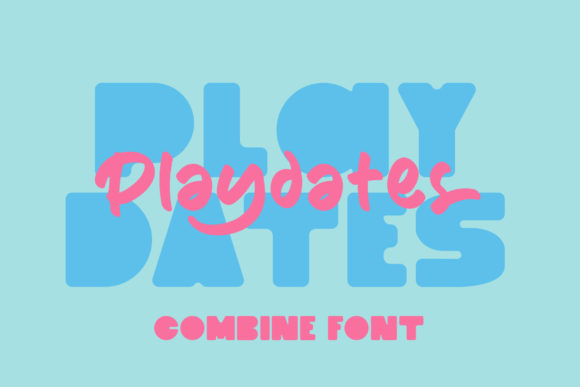
Unleash the magic of Playdates Font, an exquisite script font family that will ignite your creativity and transform your designs into captivating expressions of joy. Playdates is not just a font; it's an enchanting journey through the world of merrymaking, where each letter dances with delight and every word sings with cheer.
With its graceful curves and playful flourishes, Playdates captures the essence of Christmas magic, making it the perfect choice for adding a festive touch to your holiday projects. Whether you're creating heartwarming cards, designing eye-catching posters, or crafting personalized gifts, Playdates will elevate your creations to new heights of charm and elegance.
Expertly crafted by the talented Eifets, Playdates consists of two complementary fonts that harmonize beautifully together or shine as solo performers. The regular font exudes a whimsical charm with its bouncy baseline and lively strokes, while the alternate font adds a touch of sophistication with its elegant swashes and delicate details.
The versatility of Playdates is truly remarkable. It seamlessly adapts to a wide range of design styles, from traditional to modern, from whimsical to romantic. Whether you're creating invitations for a Christmas party, designing social media graphics for your business, or personalizing home décor, Playdates will effortlessly elevate your work with its inherent grace and charm.
But what truly sets Playdates apart is its PUA encoding. This ingenious feature allows you to effortlessly access all the glyphs and swashes, giving you the freedom to explore endless creative possibilities. Experiment with different combinations, mix and match characters, and unleash your imagination to create truly unique and captivating designs.